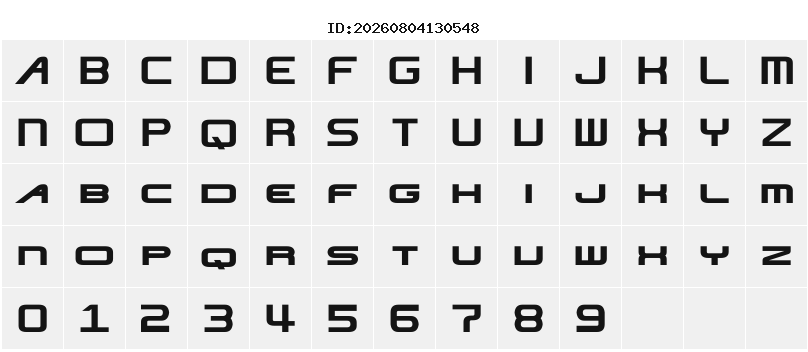
NiseJSRF Preview
About NiseJSRF.ttf
NiseJSRF.ttf is a modern, elegant sans-serif font designed for ultimate readability and visual harmony. Perfect for branding, headlines, web design, and print materials.